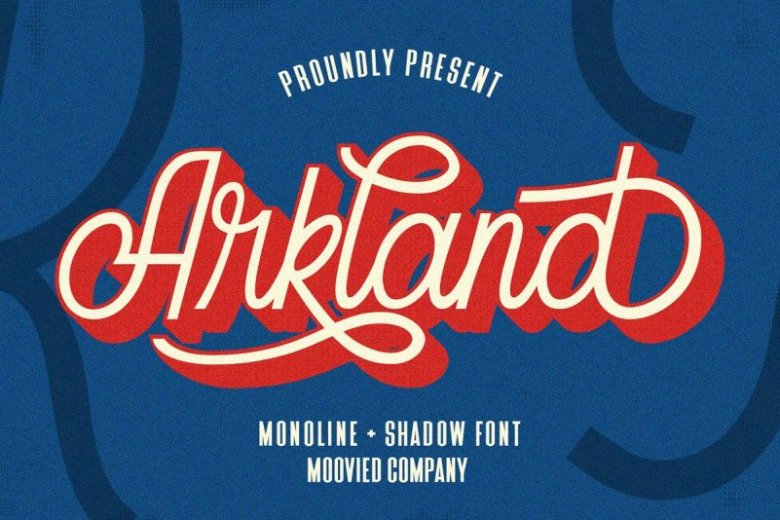
Arkland Monoline Script Font
Thank you for looking Arkland Monoline Script Font. This an elegant monoline font. A seamless clean script font. This font will nail your any design projects. Grab it now! This script font comes with a retro, modern and vintage touch in it. Inspired by dinamic culture, sign and badges design. This font is great for your creative project such as logos, posters. invitations cards, packaging, badges, logotype, apparel design, Label, and etc.Arkland monoline comes with a retro, modern and vintage impression. Arkland is inspired by dynamic, retro and sign culture. This font is great for your creative projects, create logos, magazines, invitation cards, packaging, badges, clothing designs, labels etc.